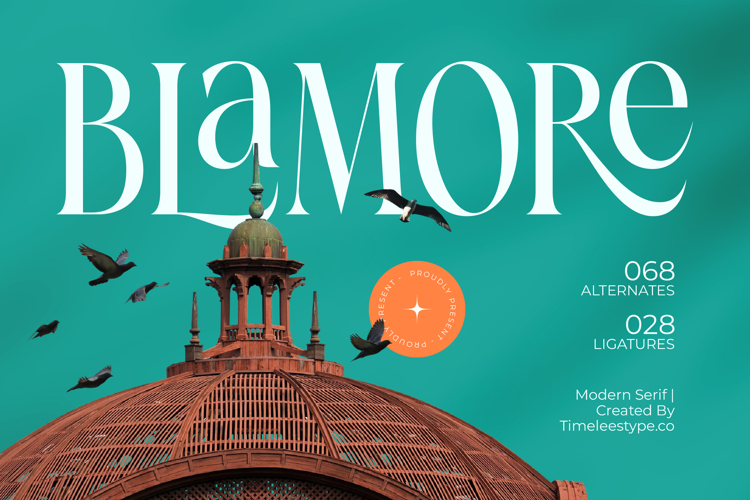
Blamore - Modern Serif Font
The Blamore Typeface is a modern serif display font that combines timeless elegance with artistic sophistication. With 68 stylistic alternates and 28 ligatures, this typeface provides designers with a versatile toolkit to create refined and distinctive typographic compositions. Its high-contrast strokes, elongated serifs, and graceful curves evoke a sense of luxury and precision, making it suitable for projects that demand both bold presence and delicate detail. Blamore is crafted to transform typography into a central visual element, ideal for modern branding and editorial applications.
This font is especially effective for editorial design, enhancing magazine covers, feature headlines, and book titles with its stylish and commanding personality. Its extensive alternates and ligatures allow designers to explore multiple variations, ensuring each publication feels unique and visually captivating.